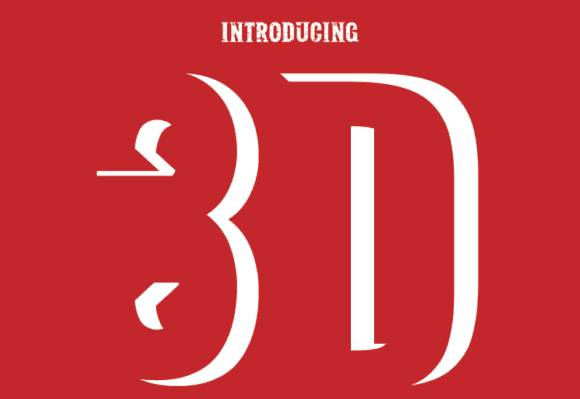
3d Font for Headlines, Posters and Branding Projects
This dimensional font features 3D-style letterforms crafted to stand out in visual compositions. It's ideal for use in headline graphics, promotional posters, and bold branding materials where depth and impact matter. Its unique design captures attention and adds a layer of sophistication to any project. Designers often seek out this dimensional font when creating abstract fonts for branding projects, as it enhances the visual narrative while maintaining clarity. The versatility of this typeface allows it to adapt seamlessly into various contexts, making it a favorite among creative professionals.
As a font entity, this file offers creative professionals the ability to add visual texture and layered aesthetics directly through typography. It's suitable for digital layouts, printable products, and signage requiring maximum legibility with character.
Whether you're designing event flyers, logo mockups, or product packaging, this typeface injects a dynamic, high-impact vibe into any project.
- 3D lettering for instant depth and style
- Perfect for standout titles and headers
- Ideal for high-impact print or digital media
Q: What makes this a 3D font?
A: The typeface uses design techniques like shadows and perspective layering to create the illusion of depth, giving a three-dimensional appearance.
Q: Can I use this font to design printable posters or signs?
A: Yes, it's perfect for bold printed materials and digital signage where dimensional lettering stands out.
| Visual Style | Layered 3D depth | Flat bold sans | Clean flat line |
| Best Use | Headlines, posters, logos | Body text or clean headers | UI elements and web apps |
| Design Impact | Eye-catching and bold | Minimal emphasis | Neutral and clean |